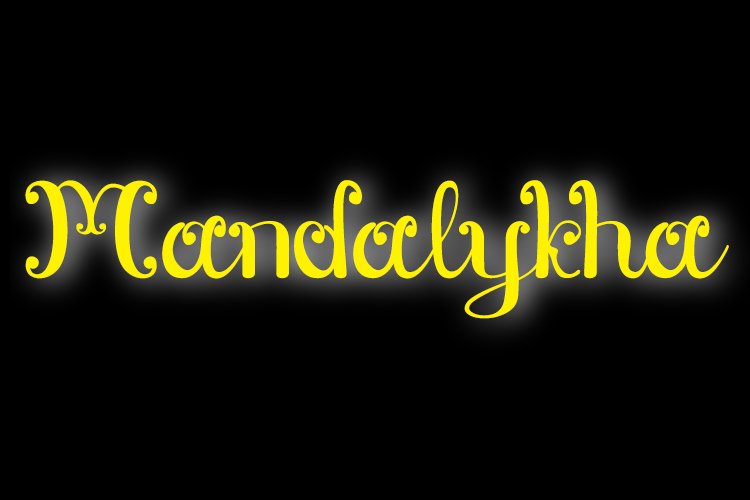
Mandalykha
Mandalykha is a very unique script font, inspired by a tourist spot located in Central Lombok Regency.
Mandalykha a stylish script which is guaranteed to add an eye-catching appeal to your logo designs, brand imagery, quotes, product packaging, merchandise & social media posts